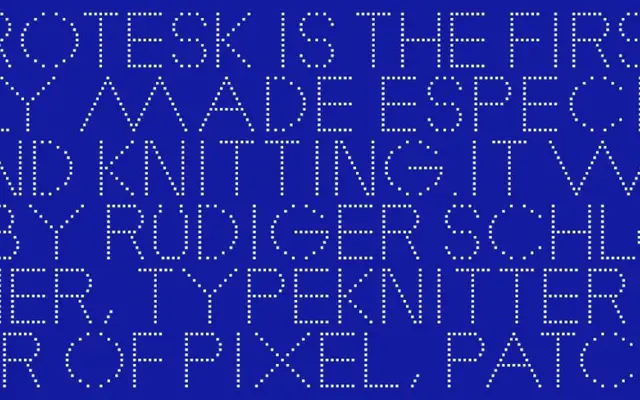
Knit Grotesk
Nouvelle Noire · Rüdiger Schlömer · 2023
A display typeface by Rüdiger Schlömer designed specifically for hand knitting, built on the structural logic of slipstitch knitting patterns.
Originating from a low-resolution adaptation of Futura translated into knitting charts, the typeface developed its own typographic vocabulary through the constraints of the craft. Six cuts combine three weights with two background treatments: Dot, which uses a blank background, and Stripe, which applies a horizontal line grid derived from alternating two-tone double rows in slipstitch knitting. The cuts can be layered and combined to produce a wide range of typographic effects rooted in textile logic.
Knit Grotesk is a display typeface built on a strict horizontal line grid derived from slipstitch knitting patterns, giving it a bitmap-like, craft-oriented character that places it firmly in the display category rather than any conventional text genre.